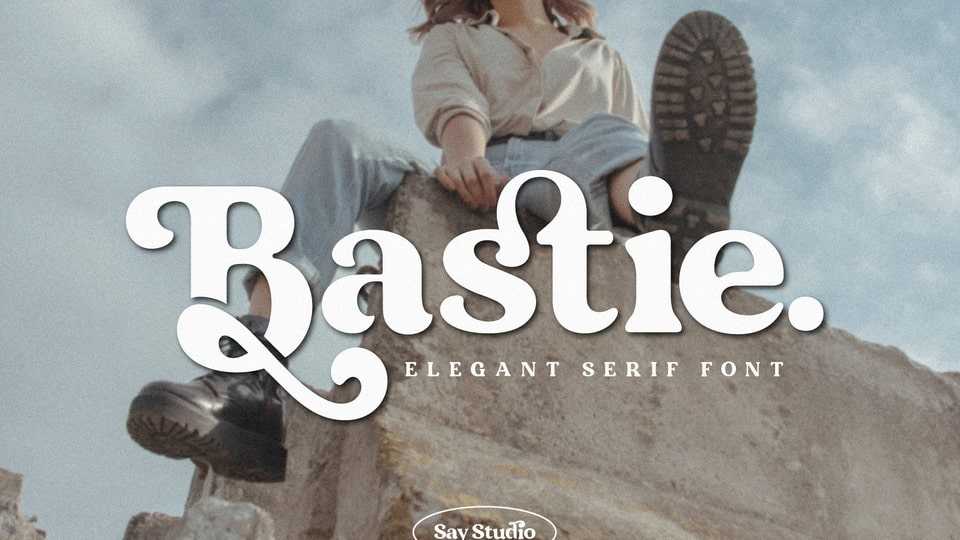
Download Bastie font, an elegant, unique, playful and versatile serif with 35+ ligatures and 50+ alternates can combine to get curves and beautiful shapes just in seconds.
Designer: Saystudio